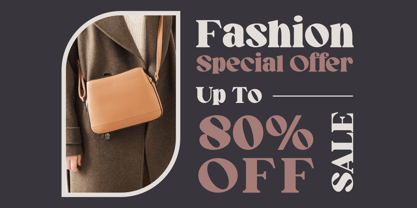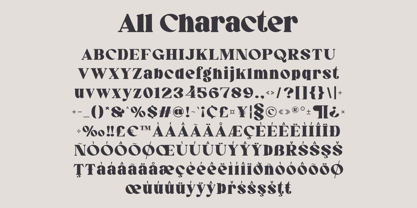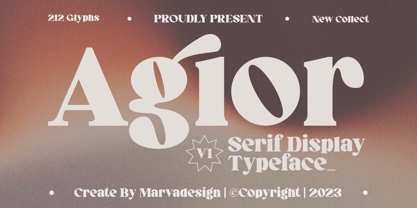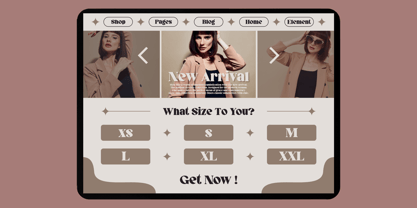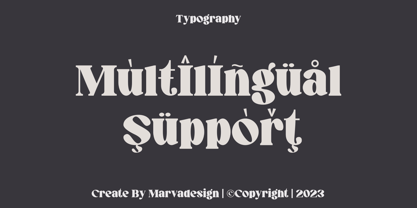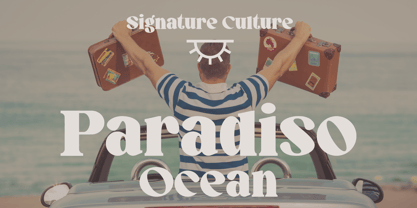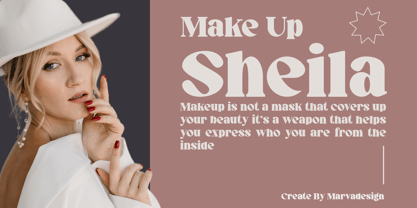
Agior
The Agior Font Family was designed by Febrie Setiawan and published by Marvadesign. Agior contains 1 styles. More about this family
Introducing Agior is a sophisticated and elegant serif display typeface designed to exude a sense of modernity while maintaining a classic and timeless aesthetic. Characterized by its bold and refined letterforms, Agior features high contrast between thick and thin strokes, giving it a dramatic yet graceful appearance.
The typeface incorporates unique stylistic elements, such as curved terminals and subtle geometric influences, which enhance its visual appeal and make it highly suitable for luxury branding, editorial design, and promotional materials. Agior's distinctive serifs and organic curves create a harmonious balance, ensuring readability while adding an artistic touch to each character.
With 212 meticulously crafted glyphs, Agior provides a versatile range of typographic expressions, making it ideal for headlines, advertisements, and creative displays. The font embodies a blend of vintage charm and contemporary flair, making it a perfect choice for designers looking to create striking and memorable typography